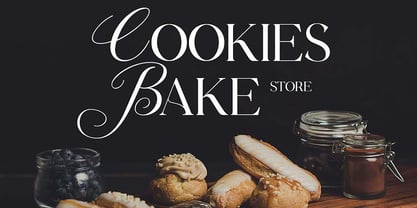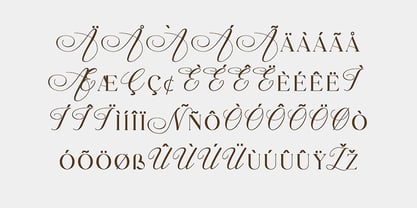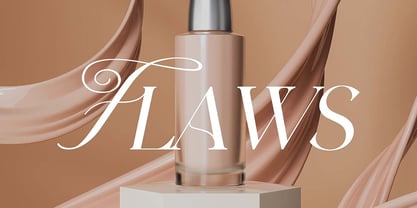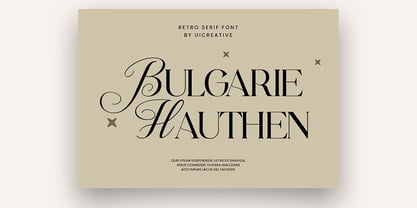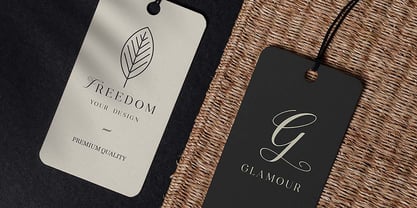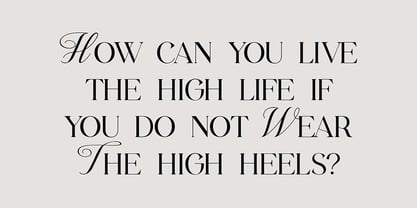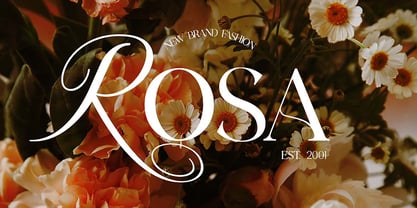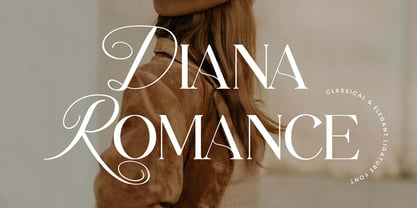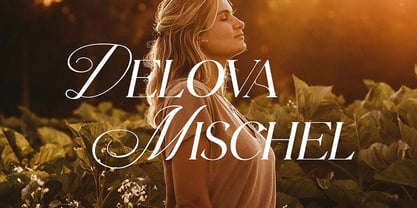
Diana Romance
von UICreative
Die Schriftfamilie Diana Romance wurde von Hero entworfen und von UICreative veröffentlicht. Diana Romance enthält 2 Stile und Familienpaketoptionen. Mehr über diese Familie
Diana Romance Classical Elegant Serif Font. The modern display font feels beautiful classy, elegant, and stylish. This font is ideally suited for a wide variety of projects, such as signature, stationery, logo, wedding, typography quotes, magazine or book covers, website headers, branding, and more. Also, fashion-related branding or editorial design displays both masculine and feminine qualities.
Designer: Hero
Foundry: UICreative